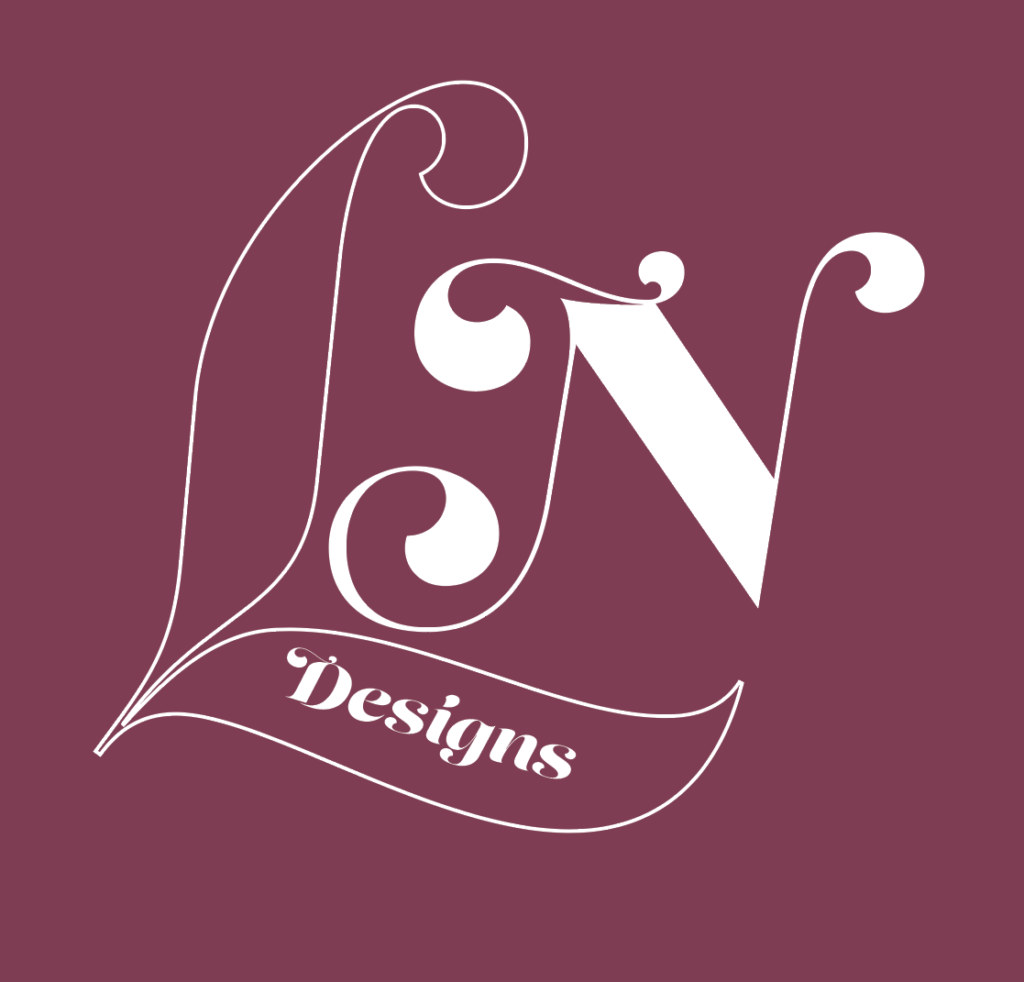
Experimenting with logo text
Design ideas and design processes:
Design 1
D1- experimenting with typefaces
D1- using the path tool for text
D1- proportioning the text
For my first logo design, I wanted to experiment with using shapes and practise using the path finder tool. As i wanted to create a simplistic first design, i started by choosing a thin typeface. This worked really well in the end because it meant that the logo didn’t look too cluttered. I then used the path finder tool which gave the logo its circular shape, i created this by first drawing the circle using the ‘shape’ tool then i used the ‘type on the path tool’ type tool. This was good for adding further information it didn’t take the attention away from the letter initials. The use of a more decorative serif font for the text within the path tool worked for the same reason and by mixing it with a simpler font help convey the different elements of design.
Design 2
D2- Picking the typefaceD2- Working with proportion
D2- experimenting with colour 02 D2- experimenting with colour 01
D2- finishing edits
In contrast to my first design, i wanted to create a more flamboyant logo that reflects the creativity of the brand. Even though the ‘L’ comes after the ‘N’ i decided to place the ‘N’ almost inside the other letter as it made the logo come together and it worked well with the shape that each letter provides. I then experimented with colour and filling in the initials. To go along side with the positioning of the initials, i filled the ‘N’  because it is the first initial of my name so it stands out more. I then tried to figure out where to out the word ‘design’, i started by placing it above the ‘N’ and below the ‘L’ but i thought that it it fit the logo well by going into the ‘L’.
Design 3
D3- Picking the font
D3- editing the sizes of the text and positioning
For my final design, in some ways i’ve combined elements from both of the previous designs. I mixed two different typefaces for the main initials, the ‘N’ matching my first design and the ‘L’ from my second design to again visually present the creativity of the brand. As well as to make the logo more visually interesting for viewers. I gave the ‘L’ the letter the font with the most curves because it create a mirror between the ‘N’ and ‘DESIGNS’.